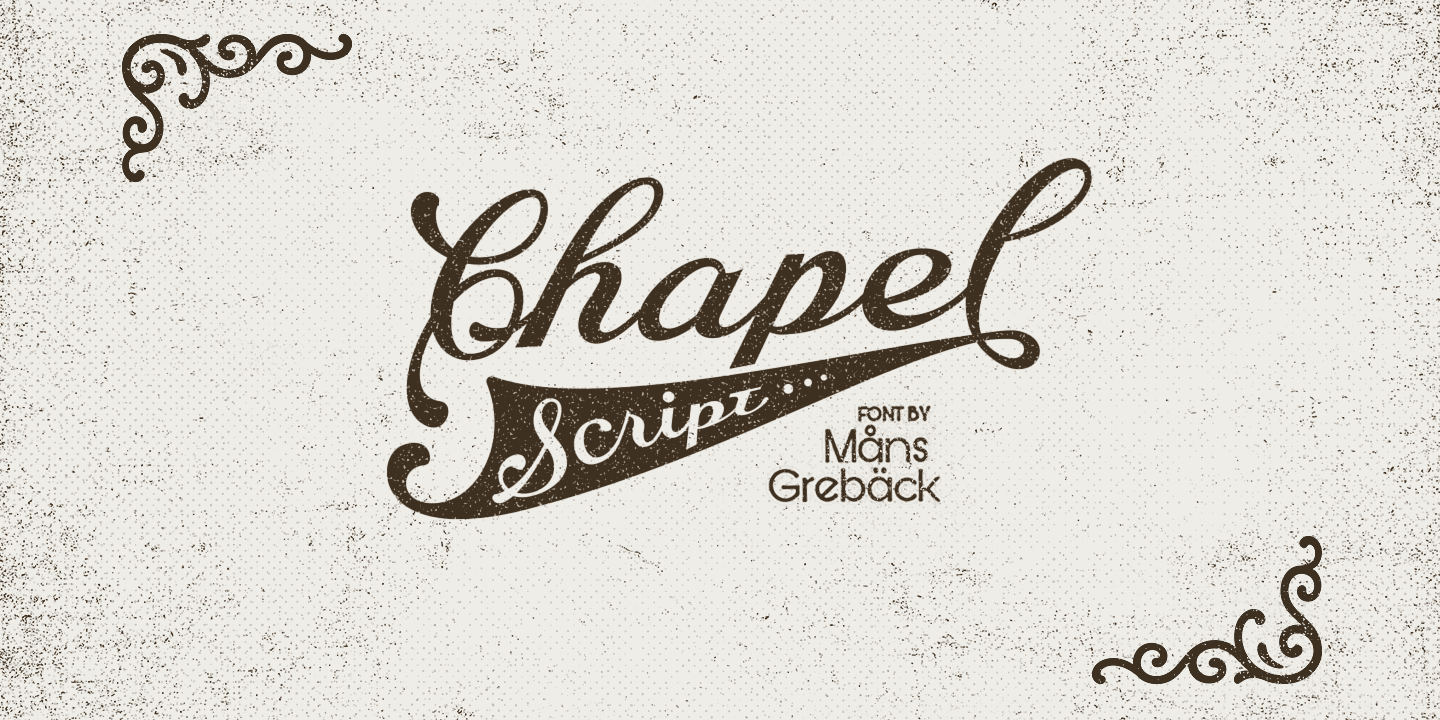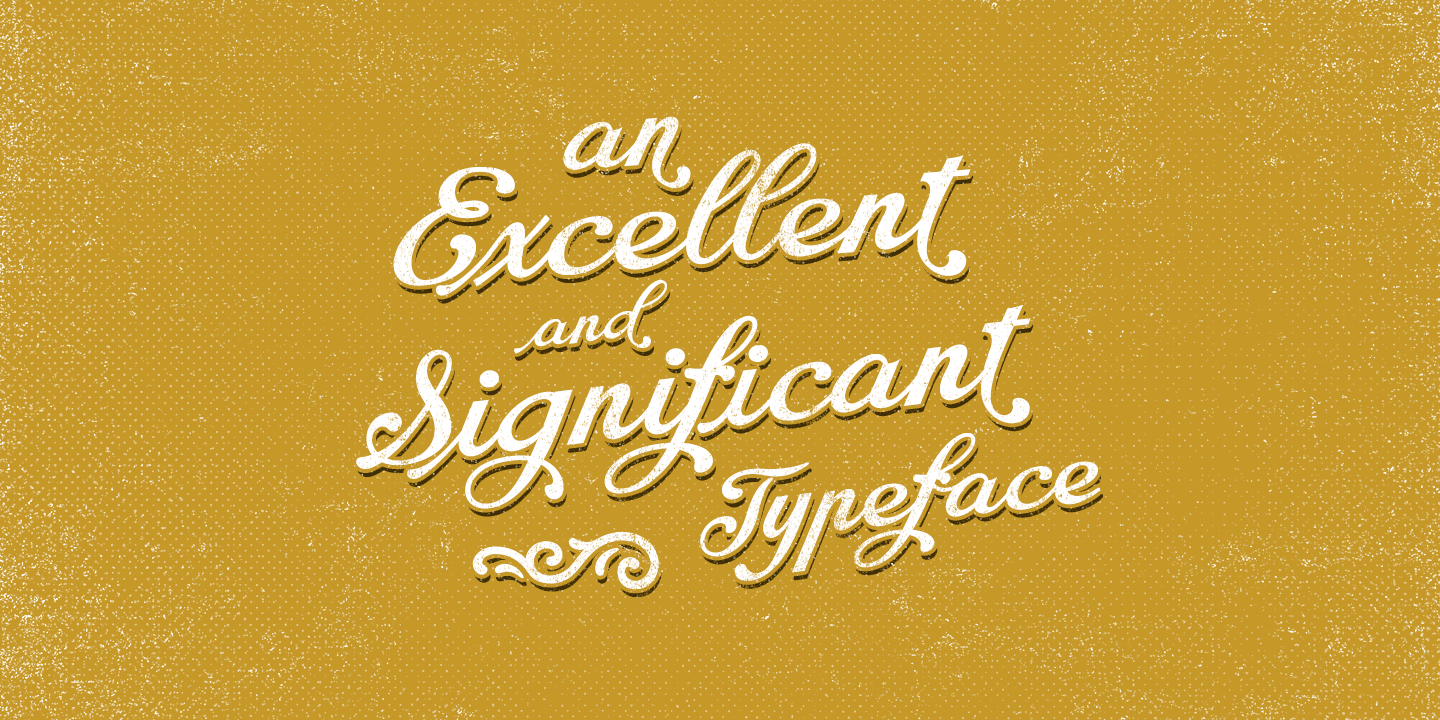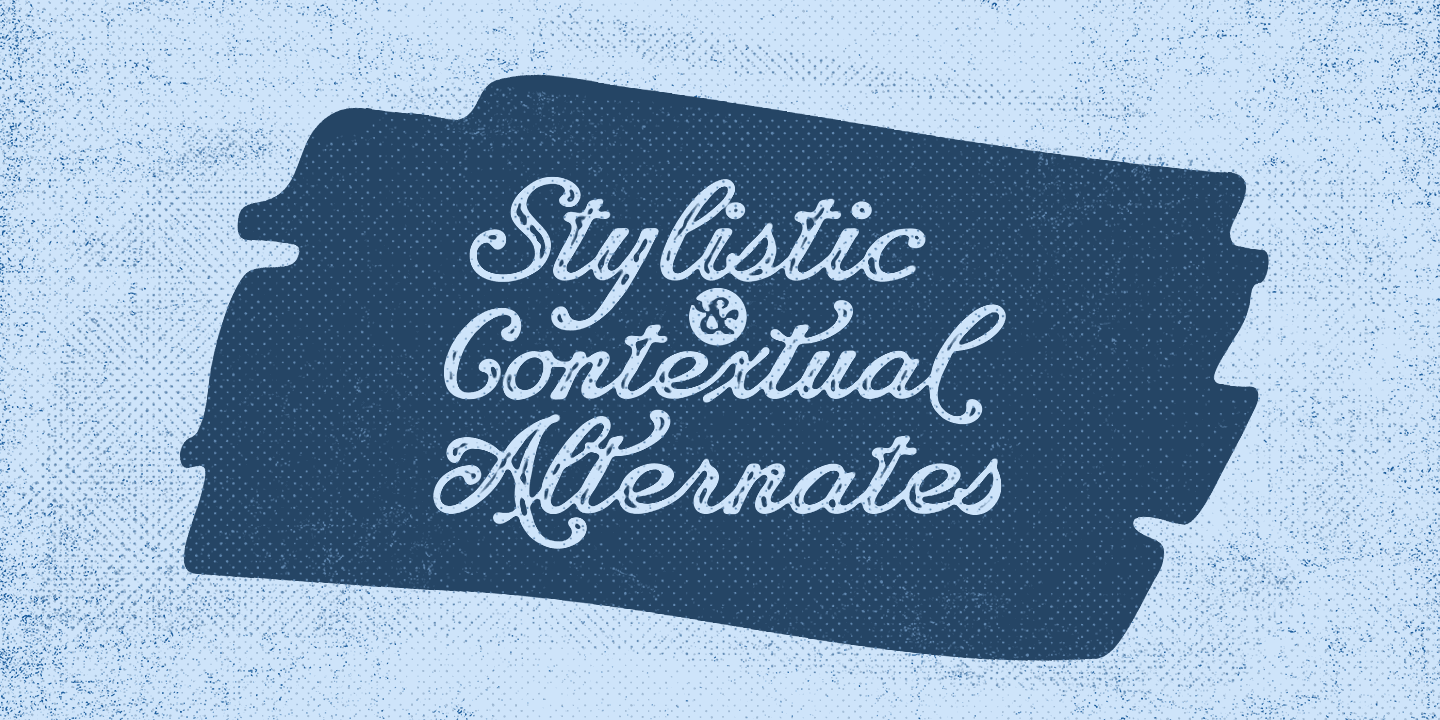
Chapel Script
Chapel Script is a classic, high-quality script font.
It is carefully hand-drawn by Måns Grebäck with inspiration from 1900’s show card and logotype design.
With its more than 700 original glyphs, the typeface supports almost all Latin languages.
Chapel Script contains contextual and stylistic alternates to give each word a customized and hand-crafted impression.
The ligatures makes each letter connect smoothly. The initial, final and swash alternates ensures soft and natural ending to each word.
Also included is a bonus font with alternate letters, which contains ten swashes to give your logo an extra effect.
Use this font for logotypes, headlines and slogans.
With it’s timeless class, it will make your graphic project fresh but reliable.